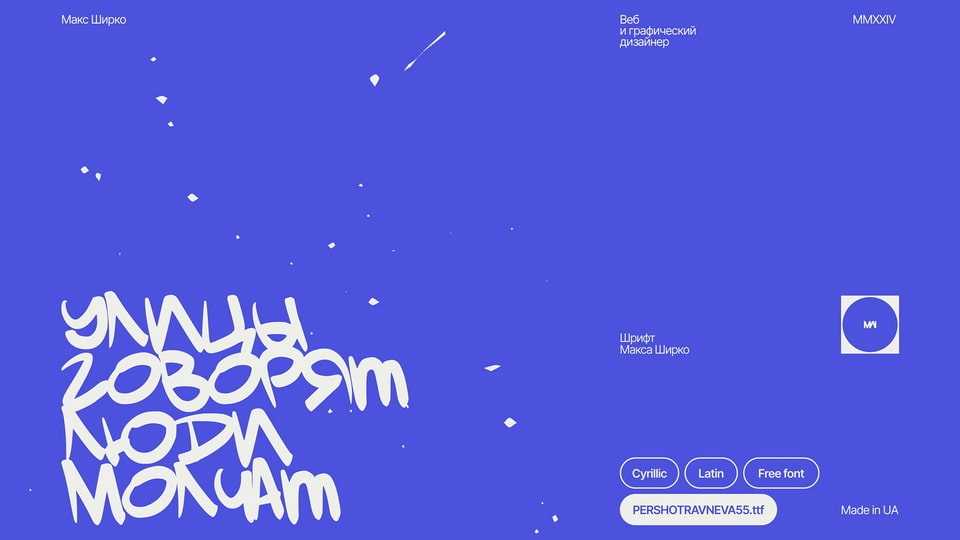
Download Pershotravneva55 font, a bold, rebellious and slightly naive hand lettered font dedicated to childhood on Pershotravneva Street, 55. This font is perfect for projects that demand a daring and unconventional touch, from edgy posters to rebellious brand identities.
Designer: Max Shirko